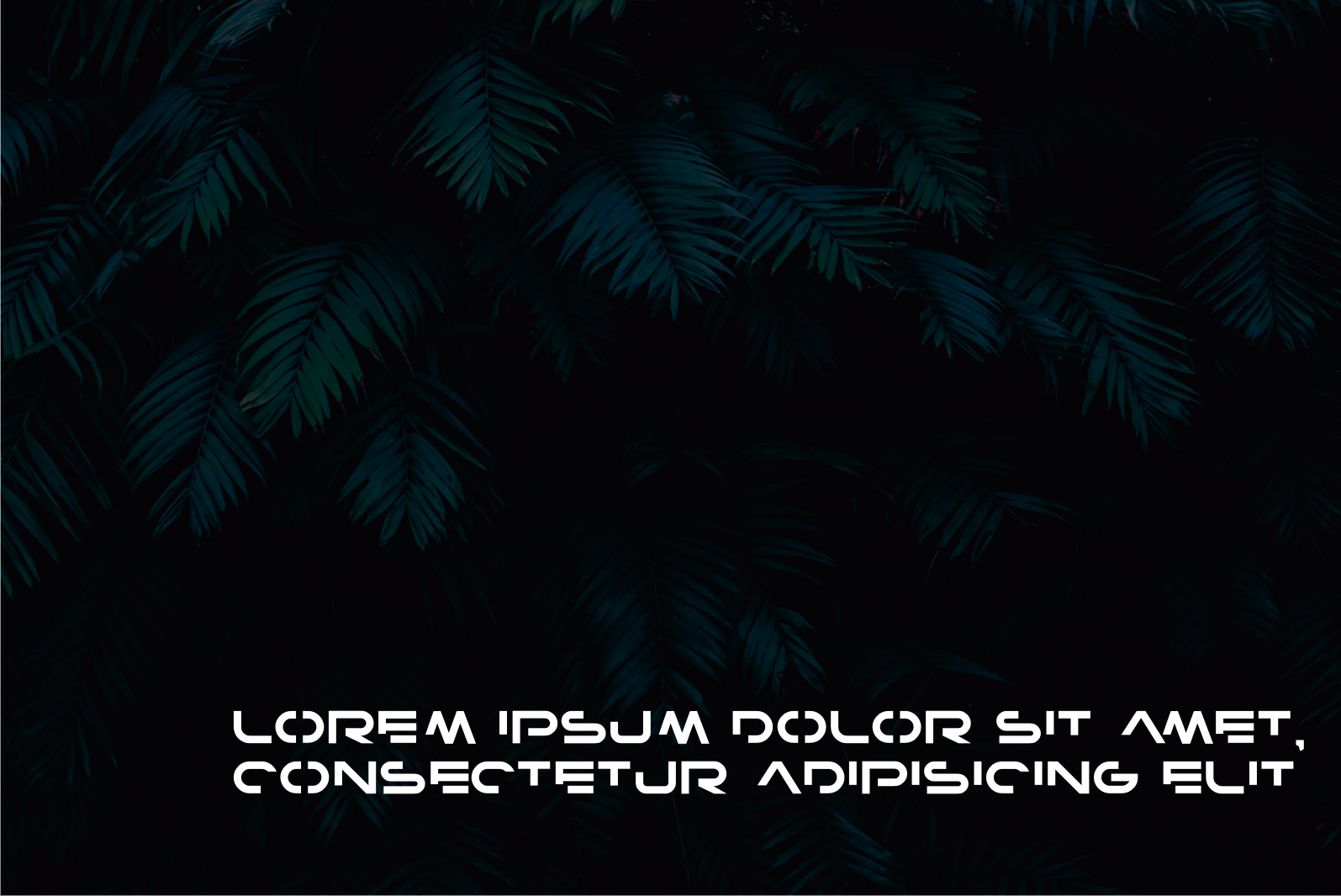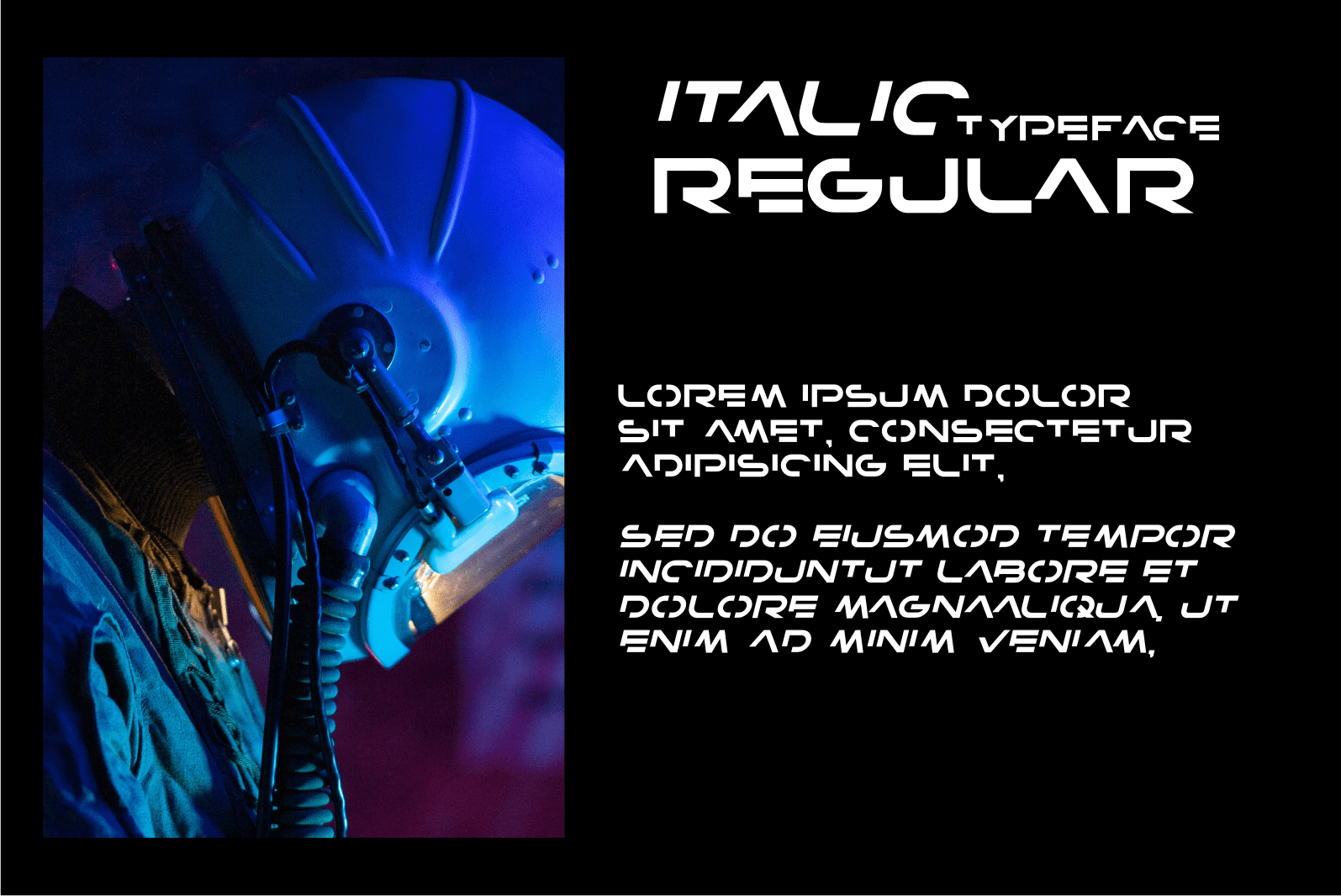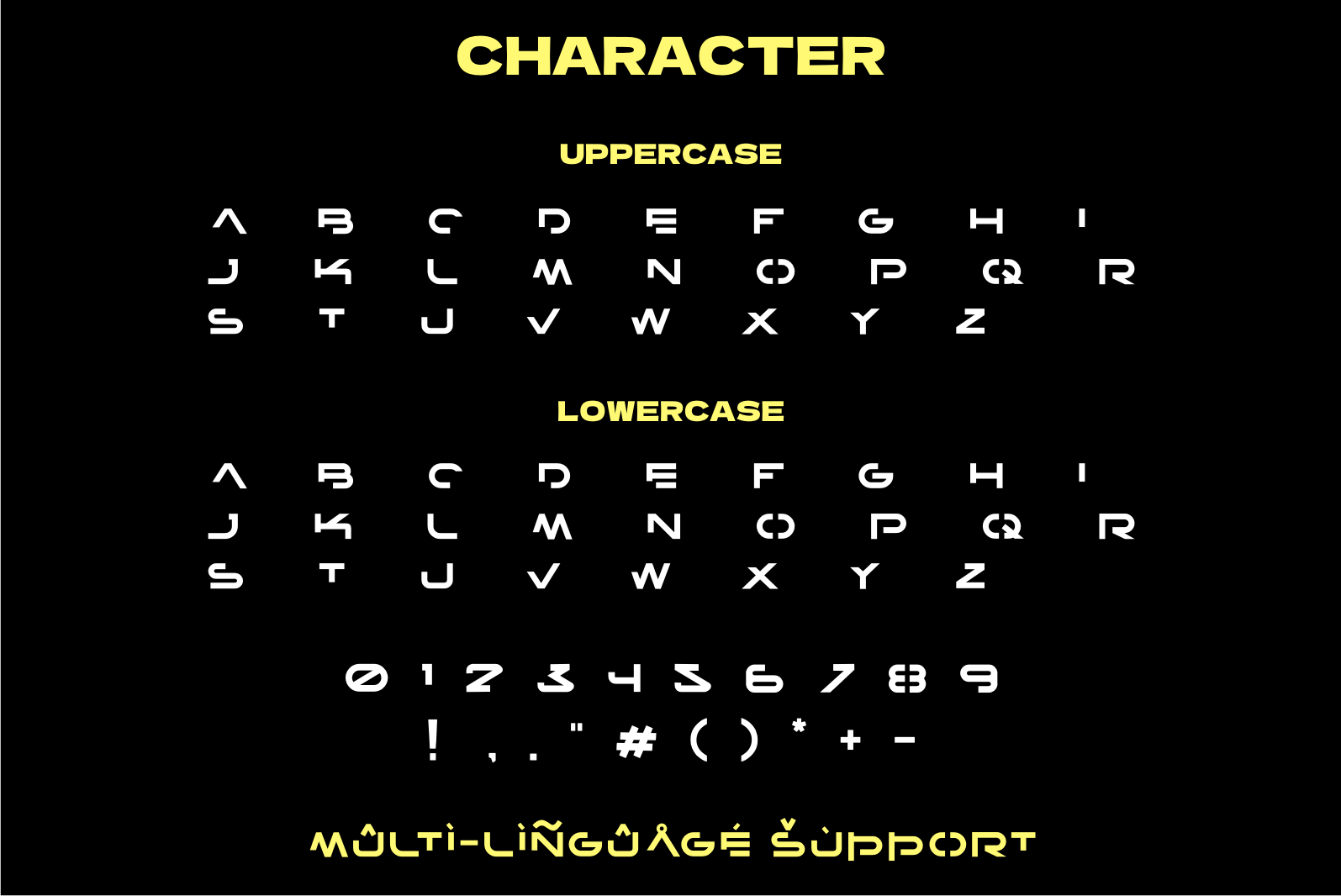
Denam Font
Denam Display Font
It’s a cool and robotic-styled display font. This font is ideal for writing web designs, business cards, or pretty much anything else that requires a futuristic touch.